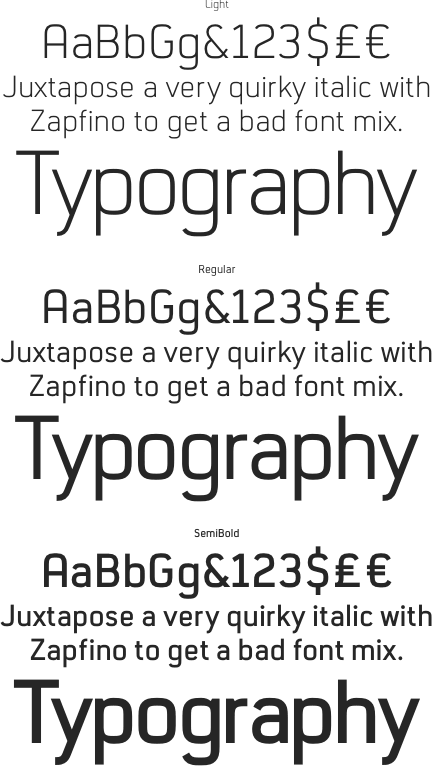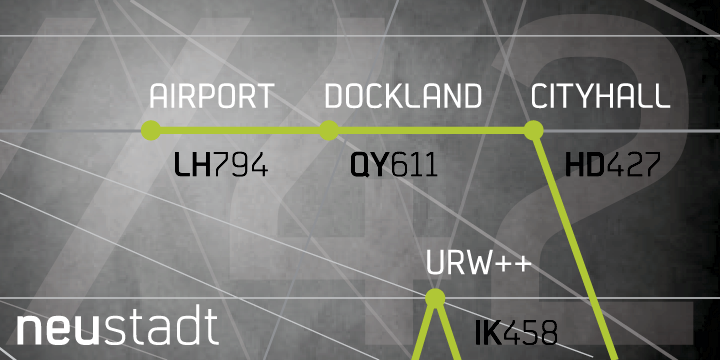
Neustadt Family (3 fonts) (URW)
Neustadt™ was designed by Joern Oelsner as a corporate font for Sport2000™, one of the leading buying groups in the European sport retail industry. Published by URW ProFonts, Neustadt is a sturdy, strong and contemporary design. Great for many applications not just corporate identity.FONTHAUS END USER LICENSE AGREEMENT